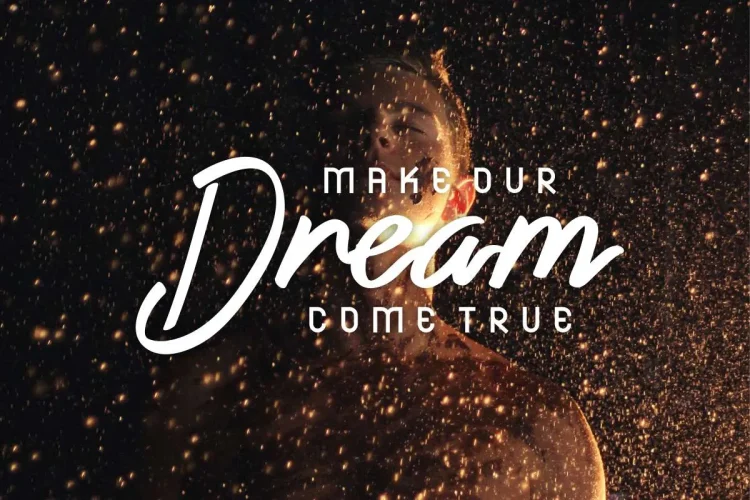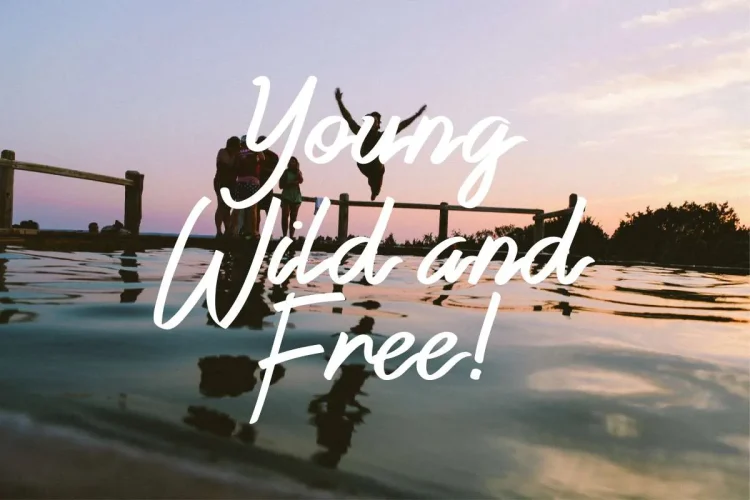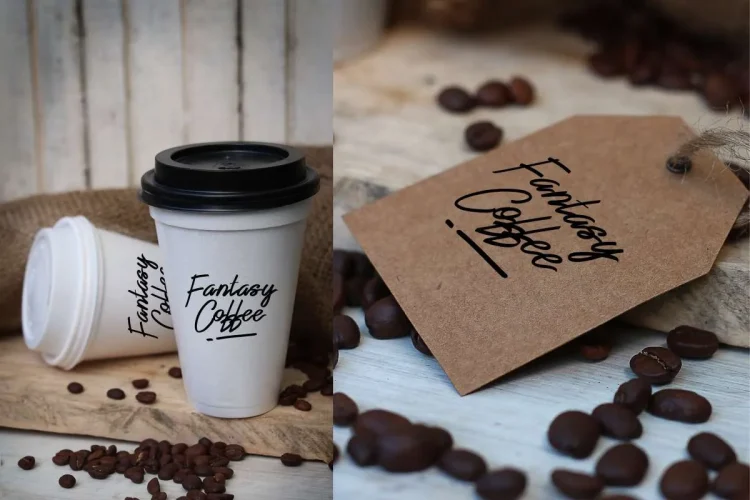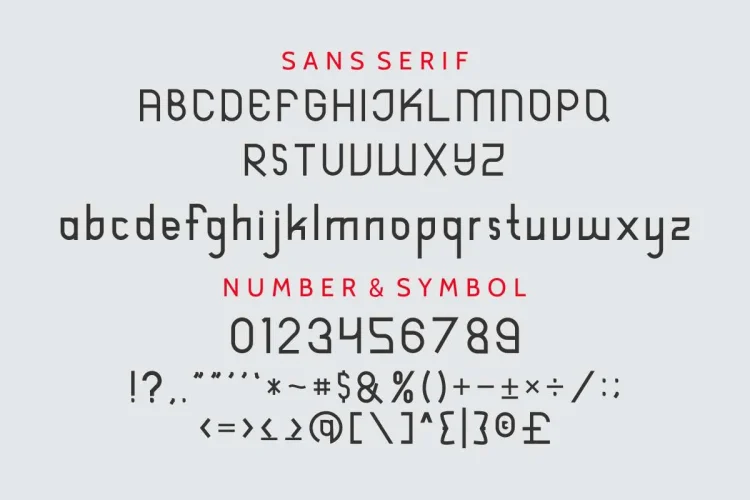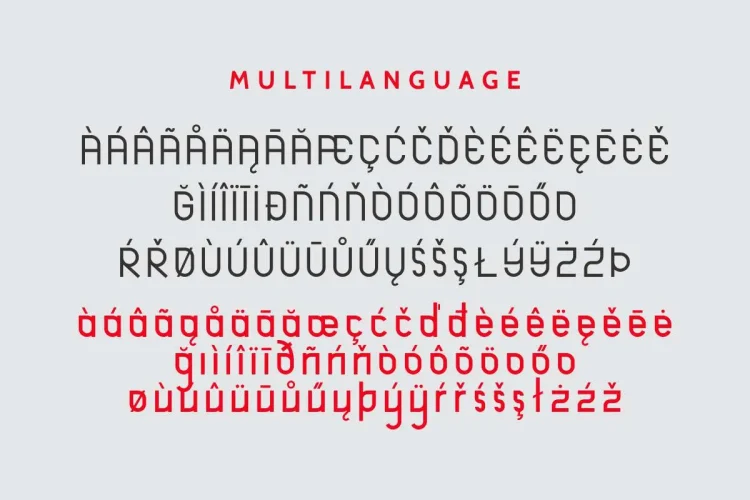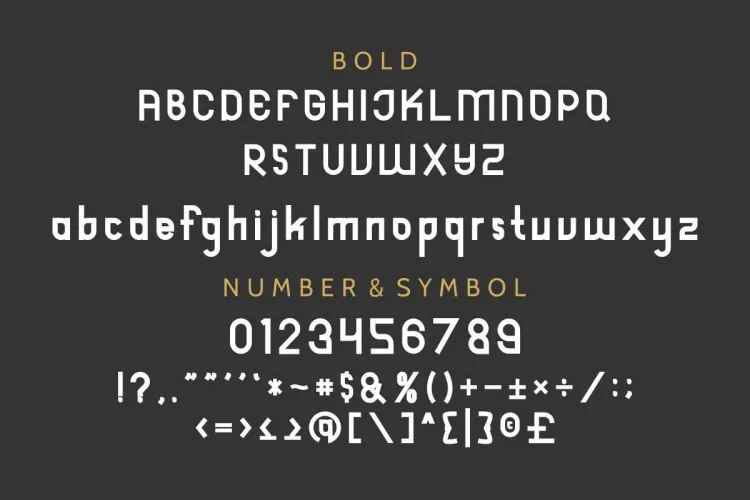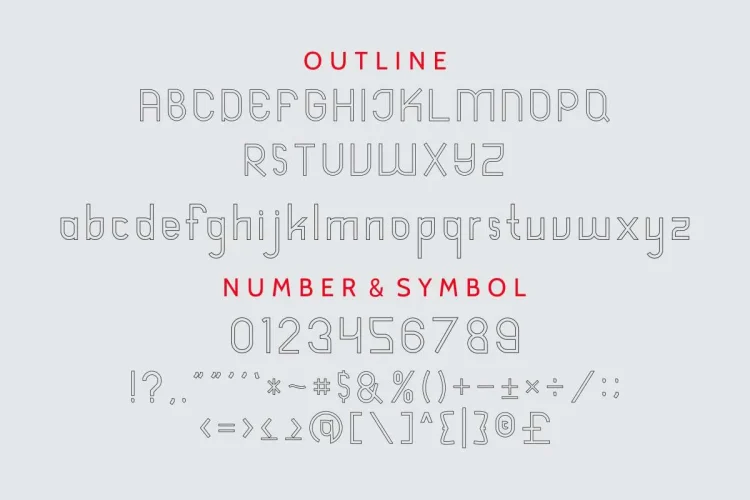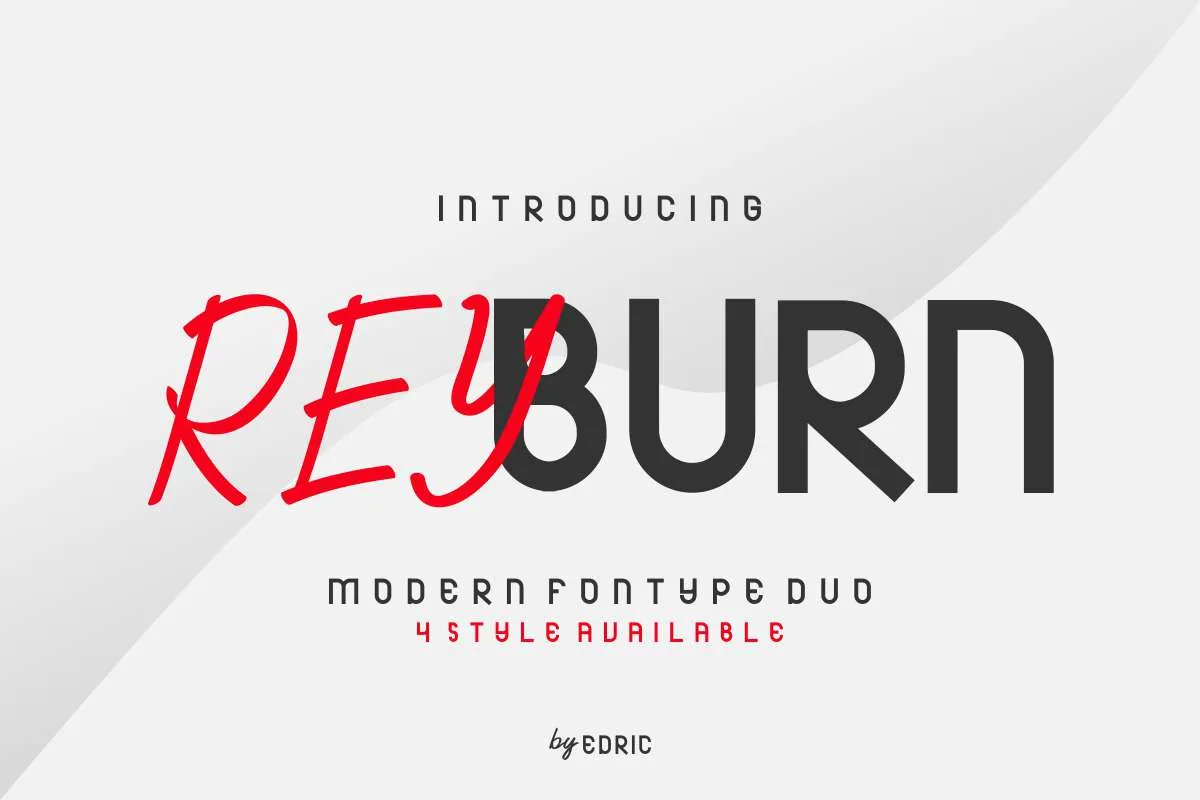
Reyburn Modern Family 4 Fonts
Reyburn Font Family
Introducing our newest font family : Reyburn! Reyburn is a new modern font family consisting of four font styles. Additionally,It features fresh, elegant and stylish glyphs. Moreover,It also supports multilanguage accents. Whether you’re working on branding, packaging, wedding invitations, food and beverage logos, or even tech-related design—this font set has you covered.
✨ Why Choose Reyburn?
To begin with, Reyburn includes four carefully crafted styles:
• Reyburn Regular – For example, Reyburn Regular is a clean and minimal sans serif perfect for headlines, editorial layouts, and digital interfaces. It’s highly readable and ideal for versatile design applications.
• Reyburn Bold – In contrast, Reyburn Bold is designed for impact, this version adds weight and authority to your titles, branding, or social media graphics. Its thicker strokes help your message stand out.
• Reyburn Outline – Alternatively, Reyburn Outline offers a more creative and eye-catching look, this outlined version adds a modern and artistic touch to posters, packaging, and promotional material.
• Reyburn Script – Finally, Reyburn Script adds softness and personality, the handwritten script font delivers a flowing, stylish feel. It’s great for personal branding, quotes, or wedding stationery.
Each style complements the others, allowing you to mix and match within the same design system—giving your project a cohesive and professional look. Moreover, Reyburn includes stylistic alternates and ligatures, making every letter combination feel custom and intentional.